Squared É mark
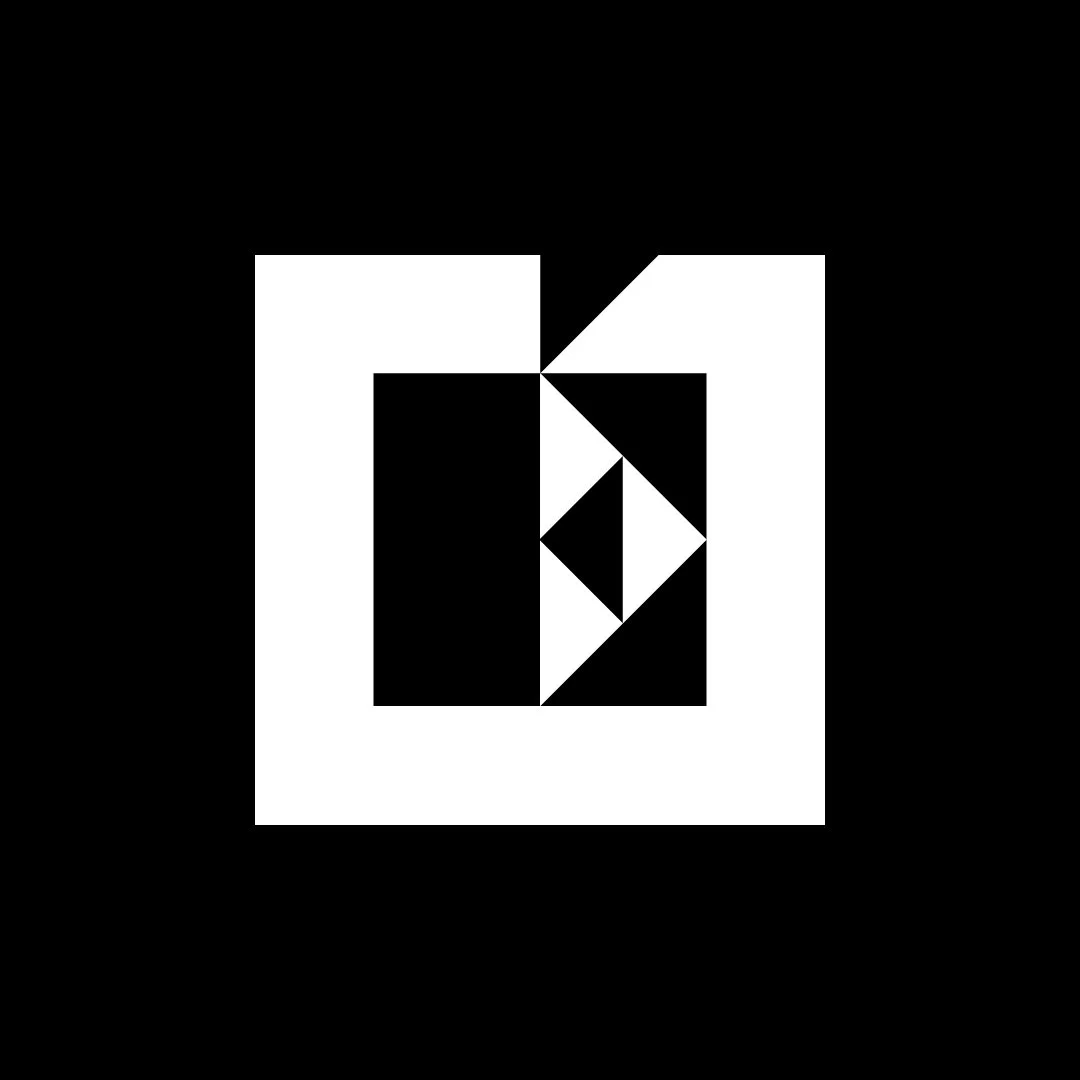
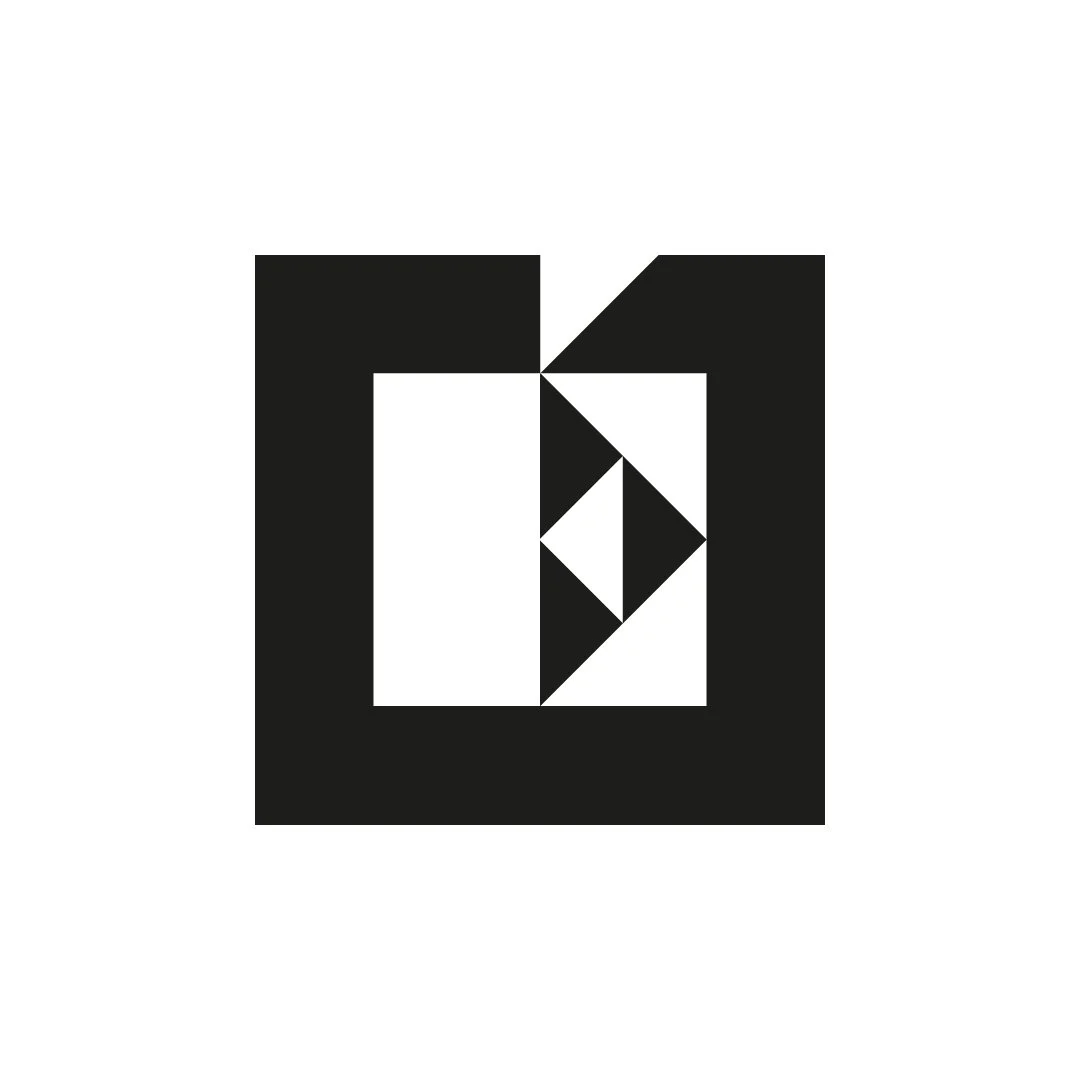
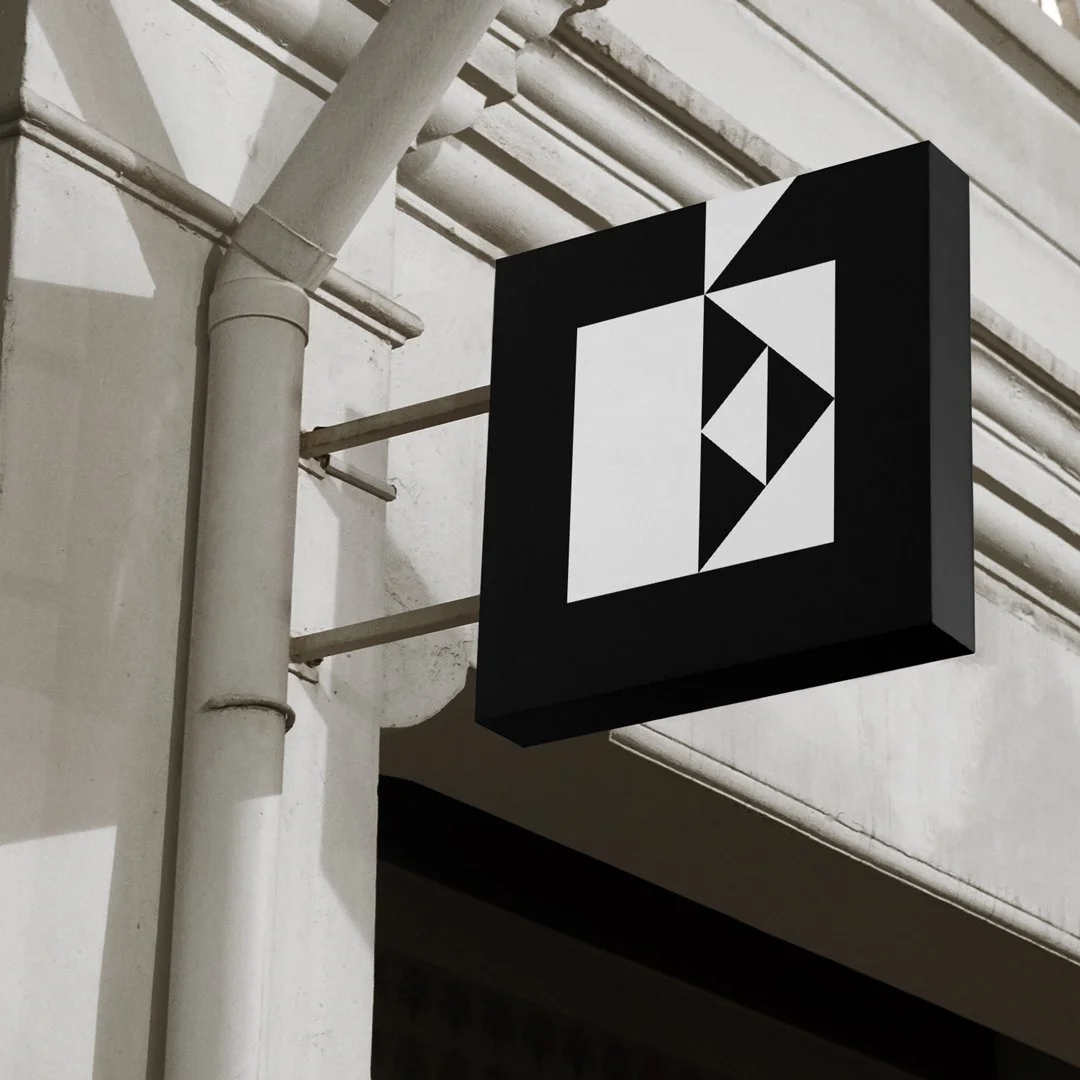
Squared É mark
A geometric letter-based symbol consisting of the letter “É” placed in a solid square. Could fit brands and products in all fields.